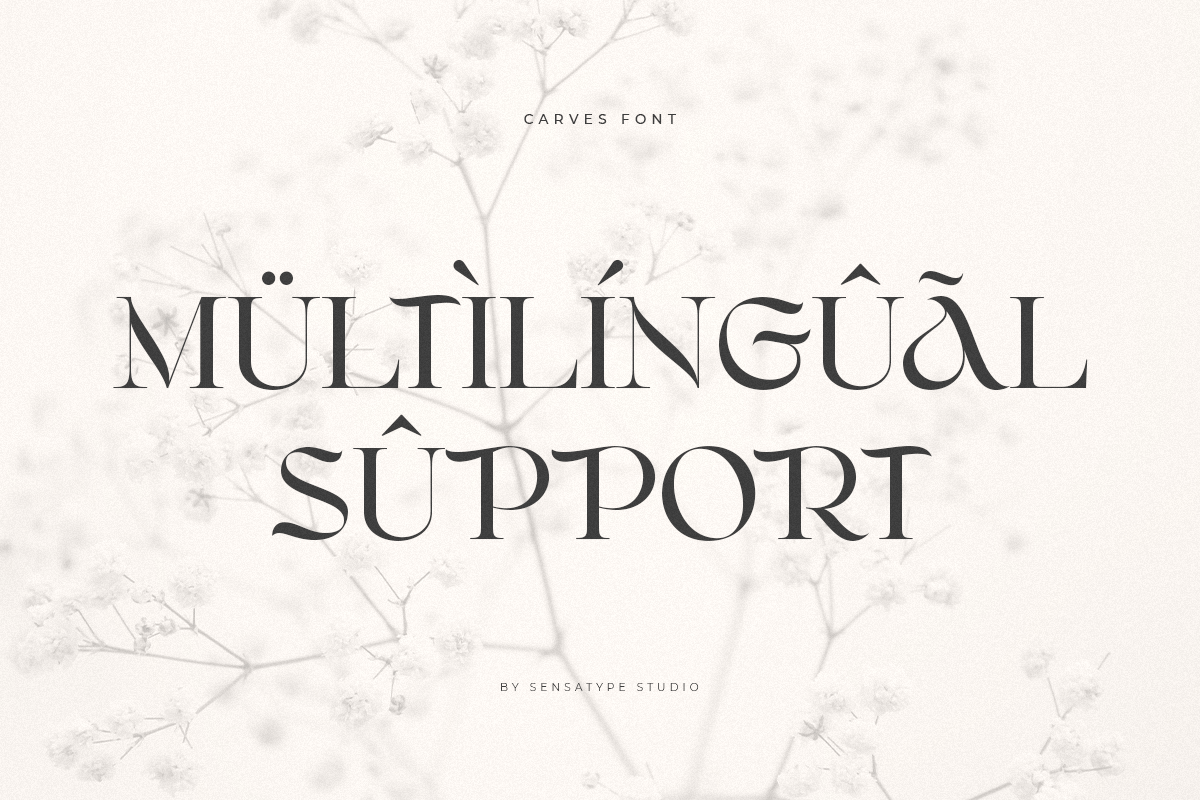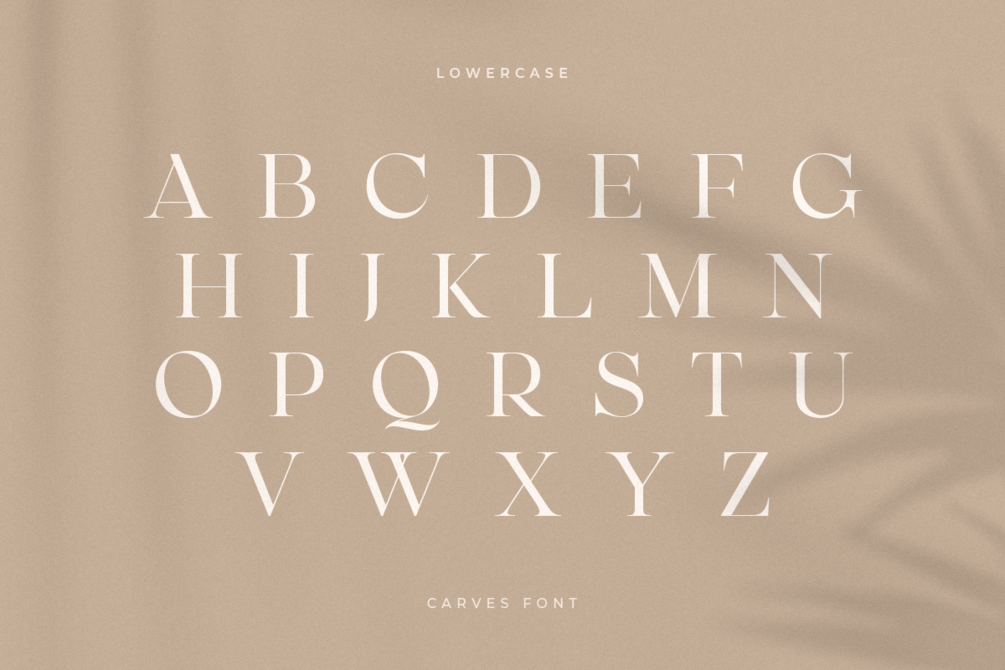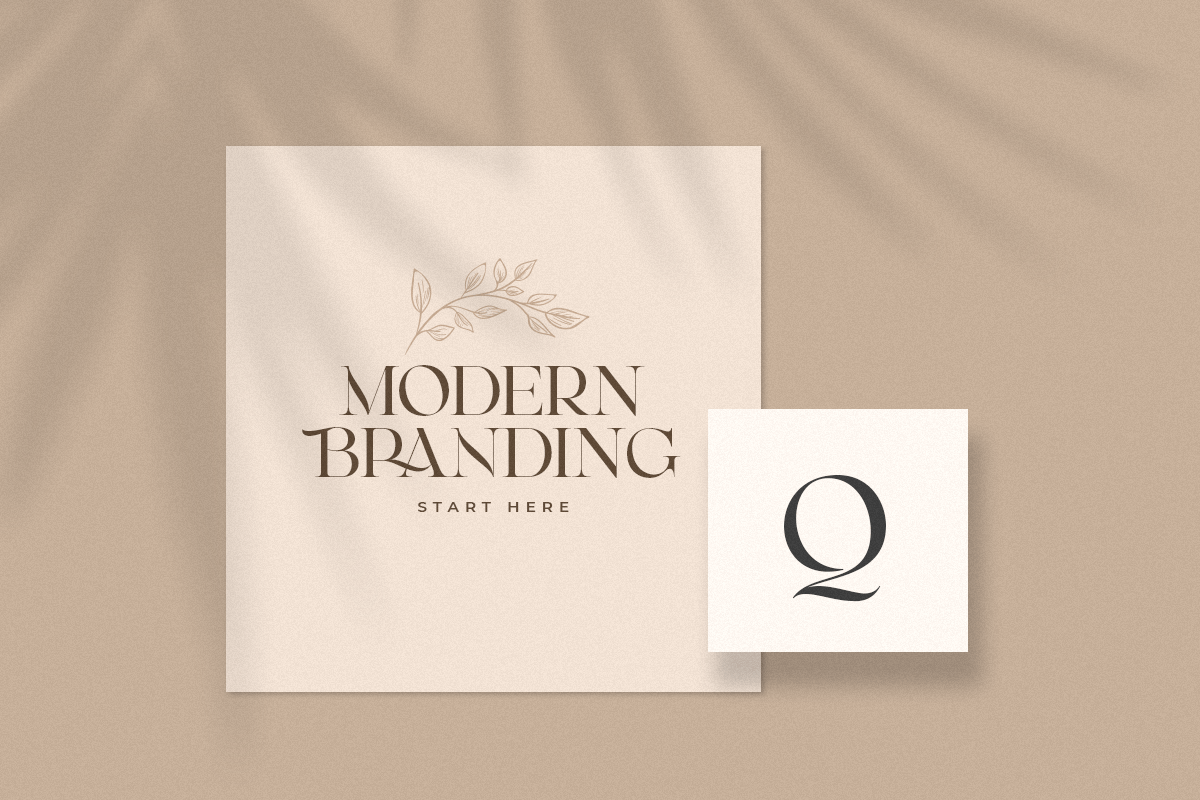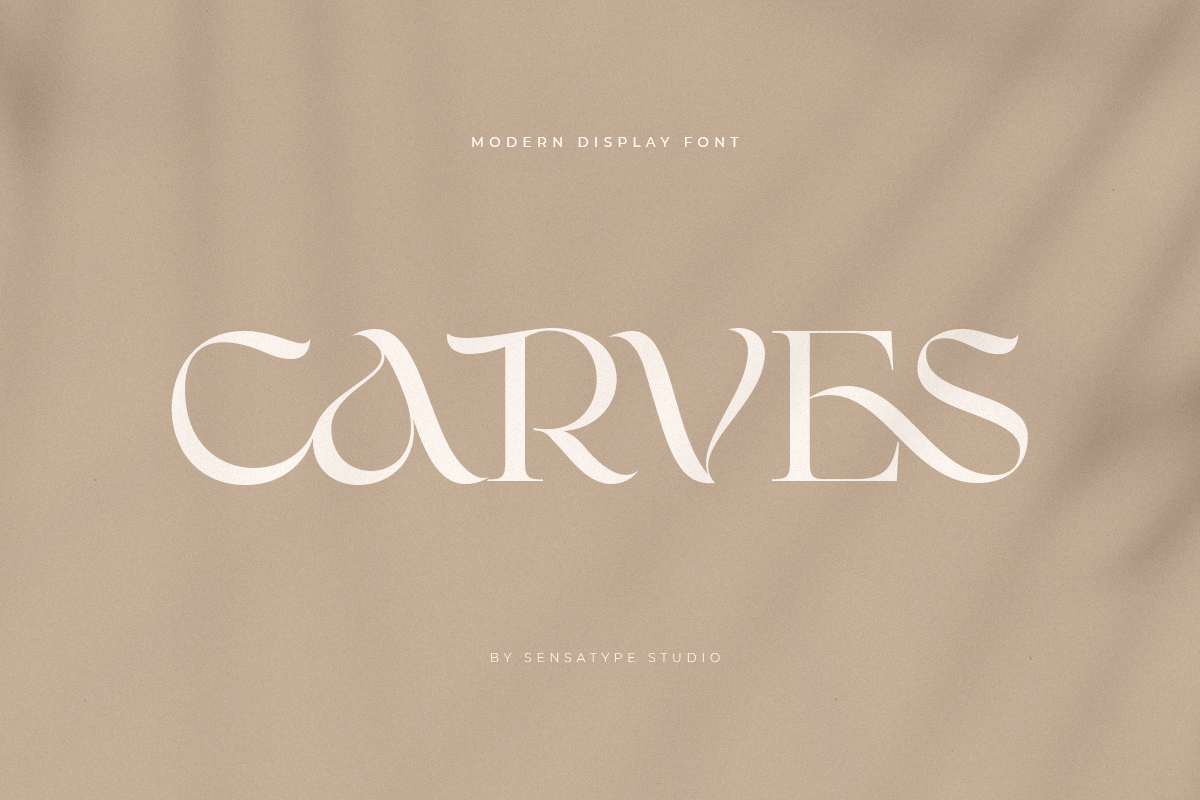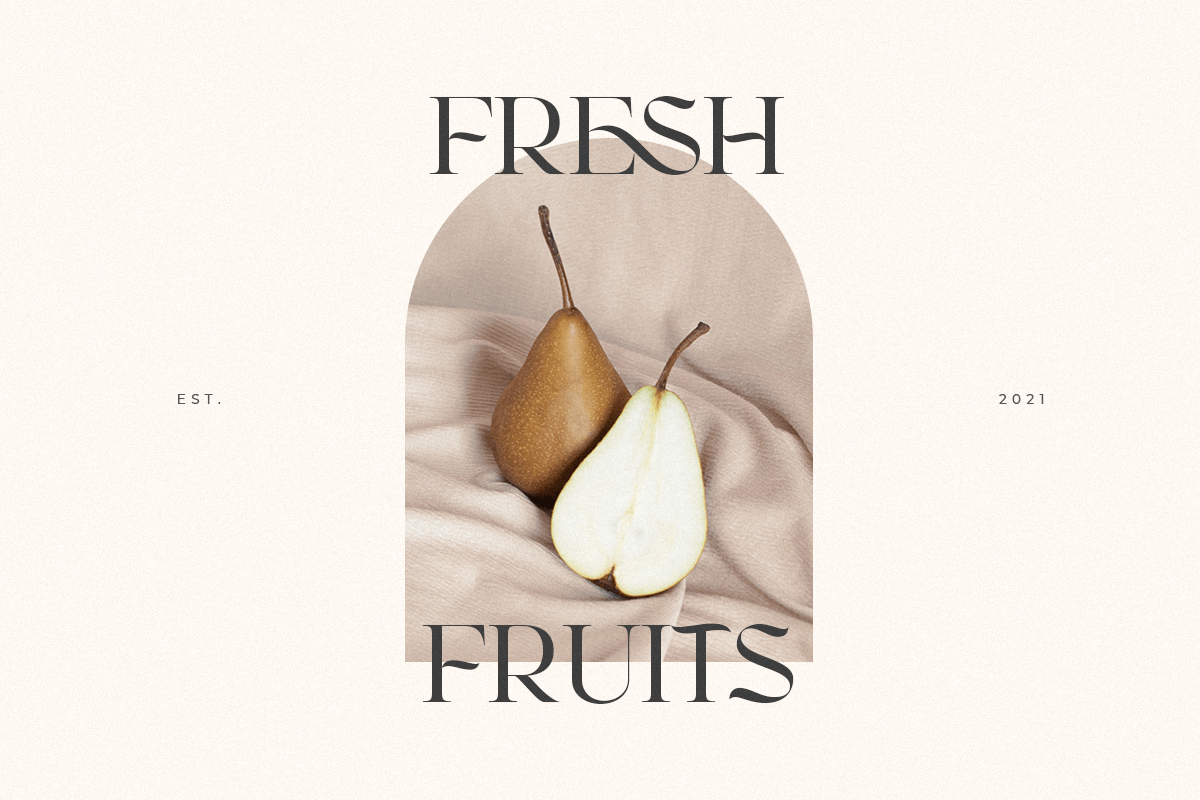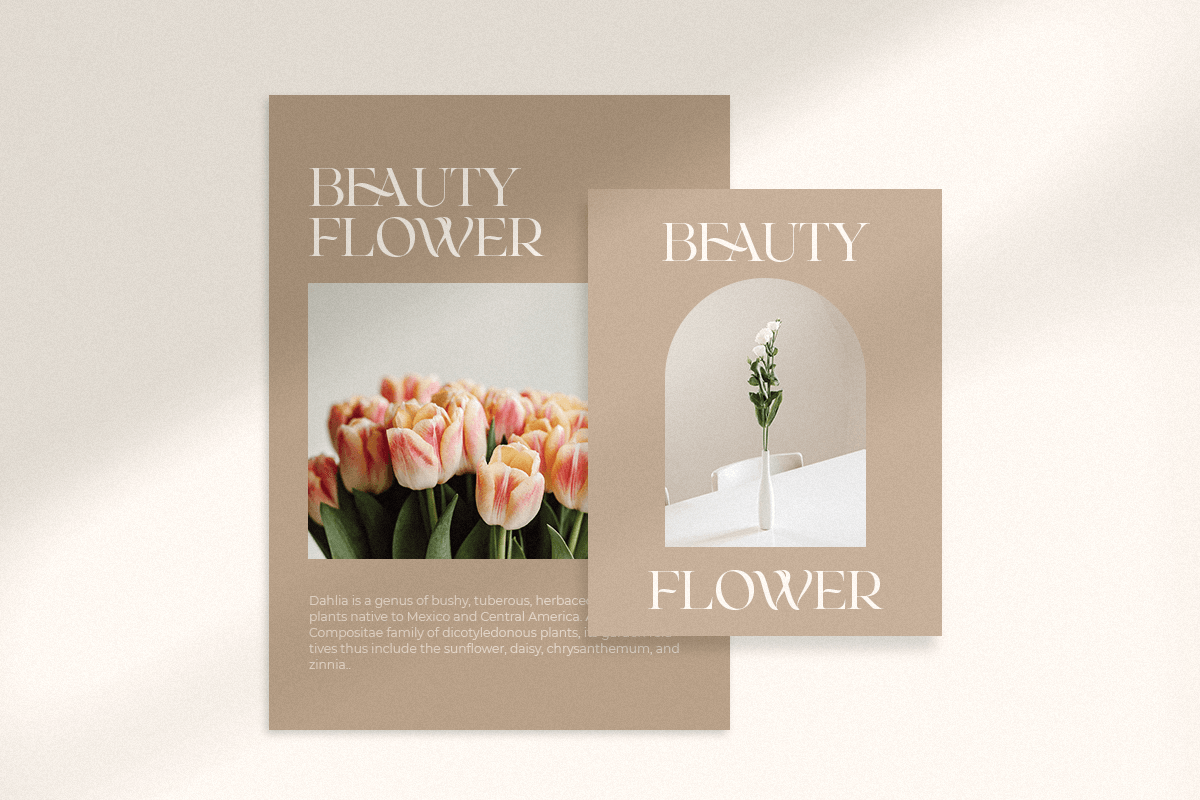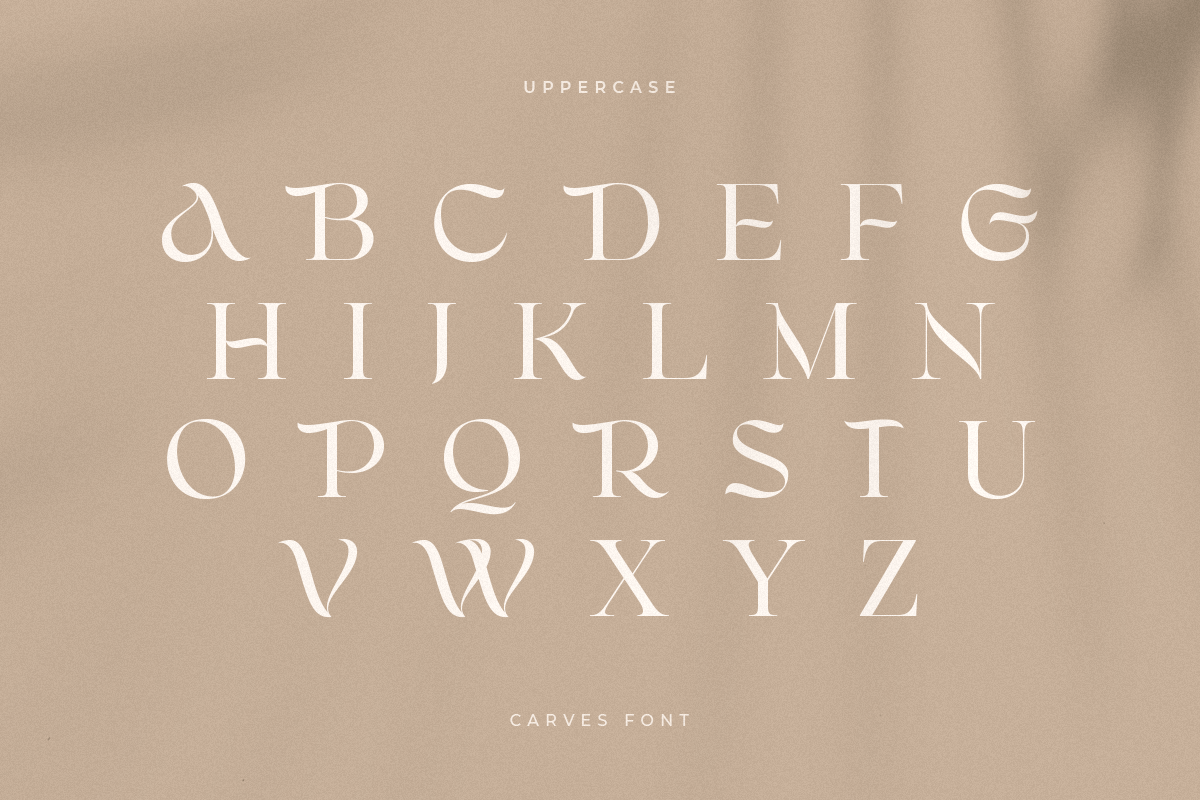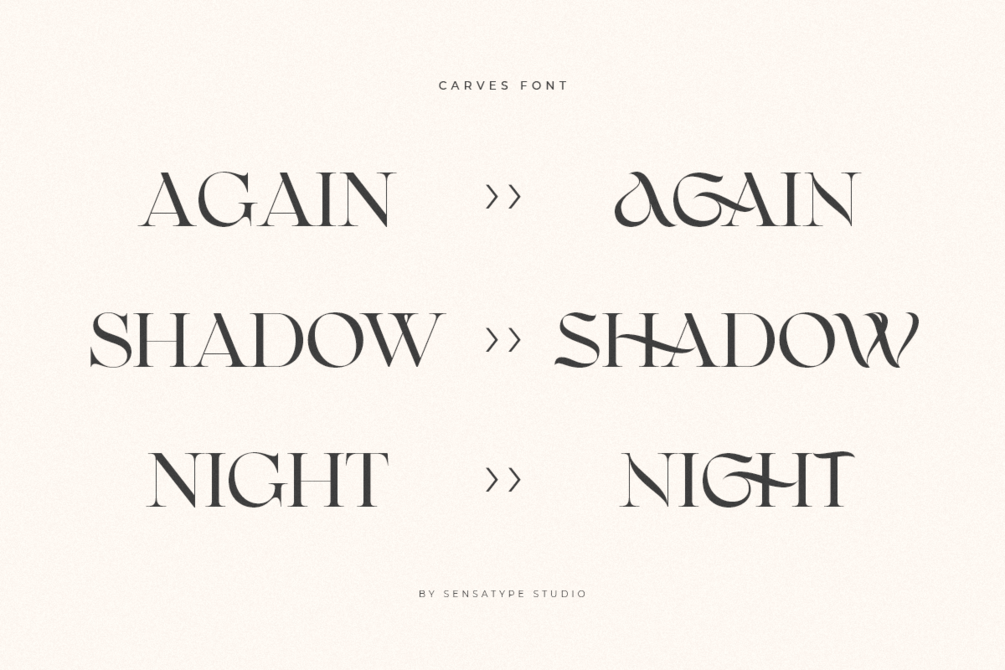
Carves - Modern Display Font
Carves is a modern display font designed to elevate your projects with a sleek, contemporary edge. Ideal for branding, logos, posters, social media, and digital products, it combines bold letterforms with clean, stylish aesthetics.
With precise and legible characters, Carves ensures a professional and eye-catching appearance across both print and digital applications.
Carves – Modern Display Font Features
• Bold and modern character set
• Perfect for branding, logos, and display designs
• Uppercase, lowercase, numerals, and punctuation included
• OpenType features for extra versatility
• Multilingual support